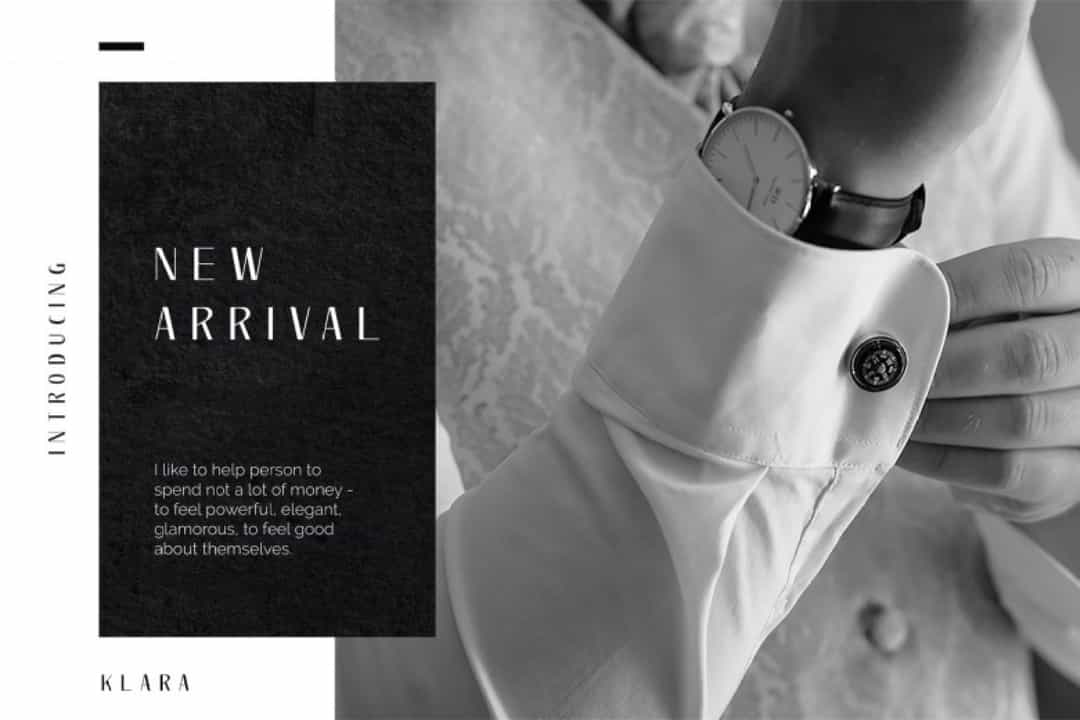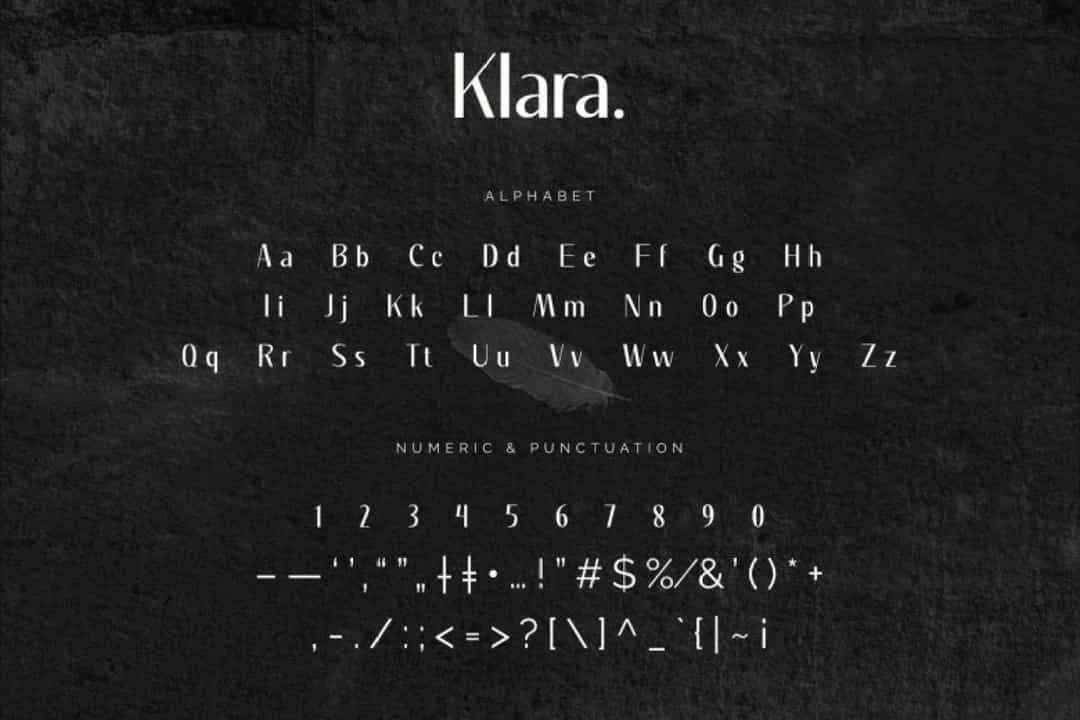
Klara Font is a sophisticated sans-serif font with crisp lines and just an ounce of sharpness, ideal for titles in magazines ads, branding initiatives or web titles/quotes that require minimal style as seen in its sample preview above.